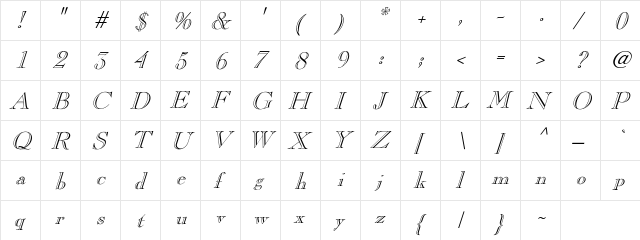
Pinchi-Italic Regular
Design Context for Pinchi-Italic Typeface
Pinchi-Italic is a composed and adaptable typeface that performs quietly and consistently across a wide range of design contexts. Its italic angle brings a sense of urgency and motion to the letterforms.
Pro Tip: Try Pinchi-Italic for annotation and caption copy alongside an upright companion — the contrast in angle creates a dynamic but ordered typographic system.